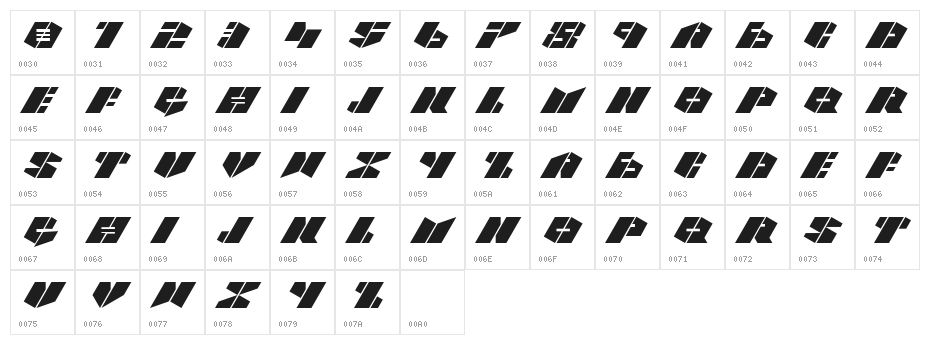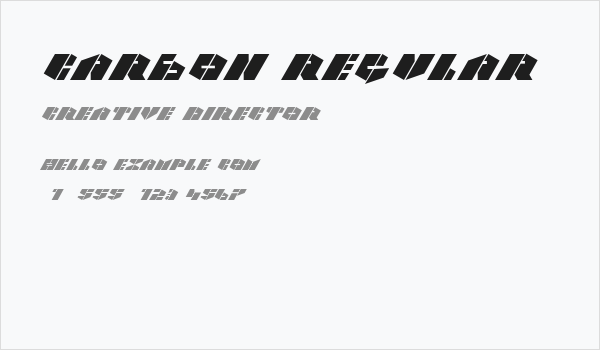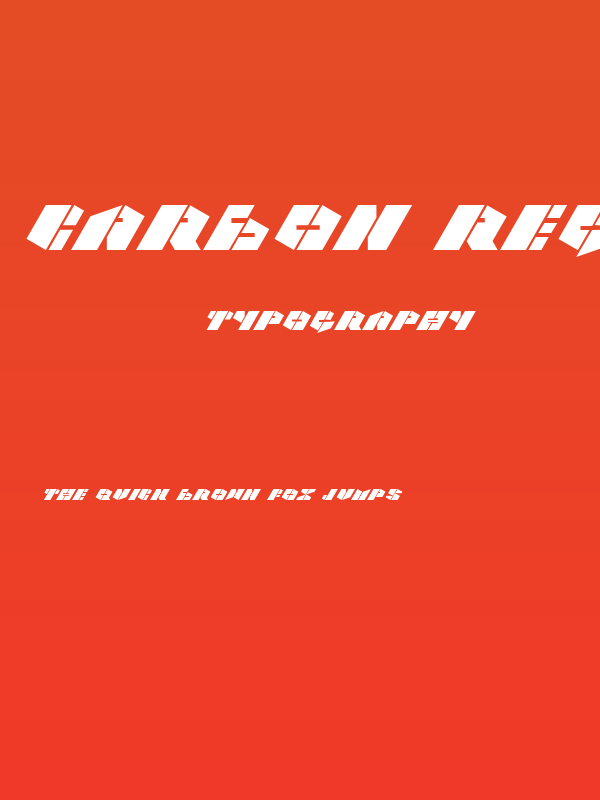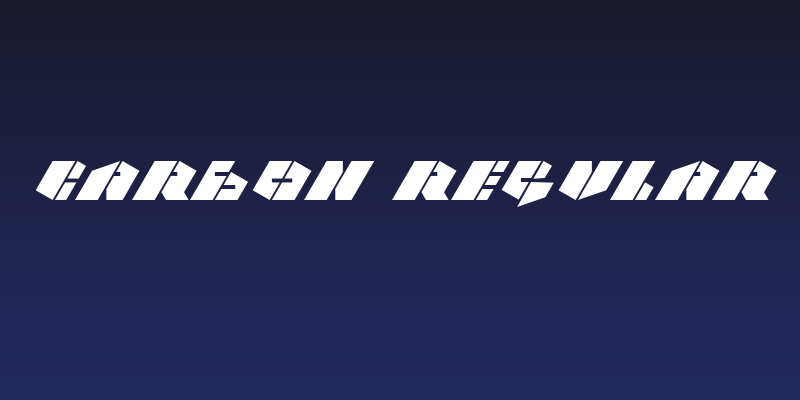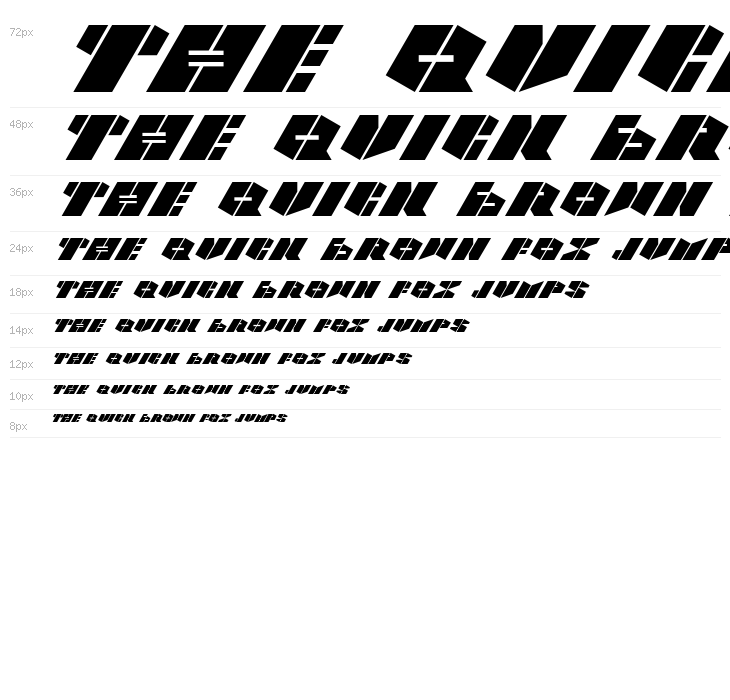
CARBON Regular Font
CARBON Regular Description
This font features a bold, angular design with a futuristic and geometric aesthetic. The characters are constructed with sharp, diagonal lines and solid fills, creating a sense of movement and energy. The uppercase and lowercase letters maintain a consistent style, with each character exhibiting a unique, edgy form. The numbers and special characters follow the same design principles, ensuring uniformity across the font. This font's distinct style makes it ideal for projects that require a modern and dynamic look.
| Overall Style | Futuristic, Geometric |
| Proposed Projects | Ideal for sci-fi themed projects, video game titles, tech branding, and modern posters. |